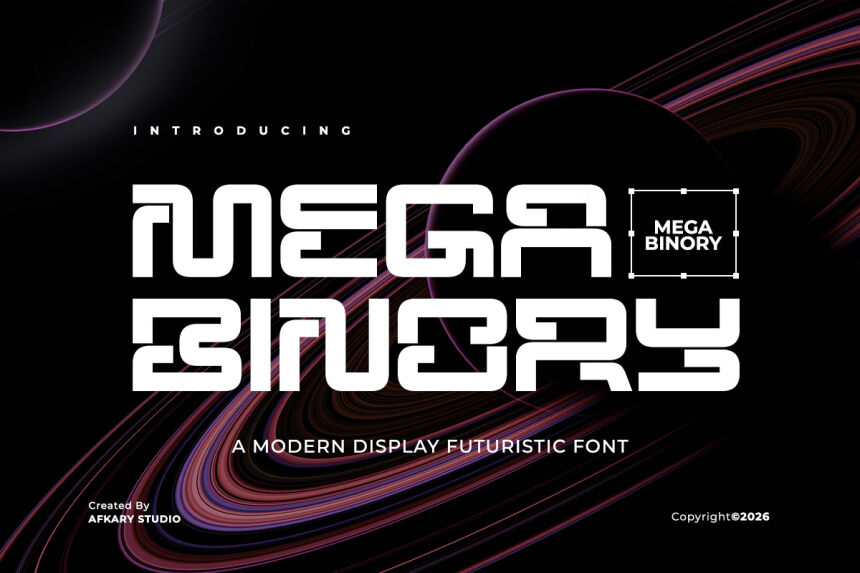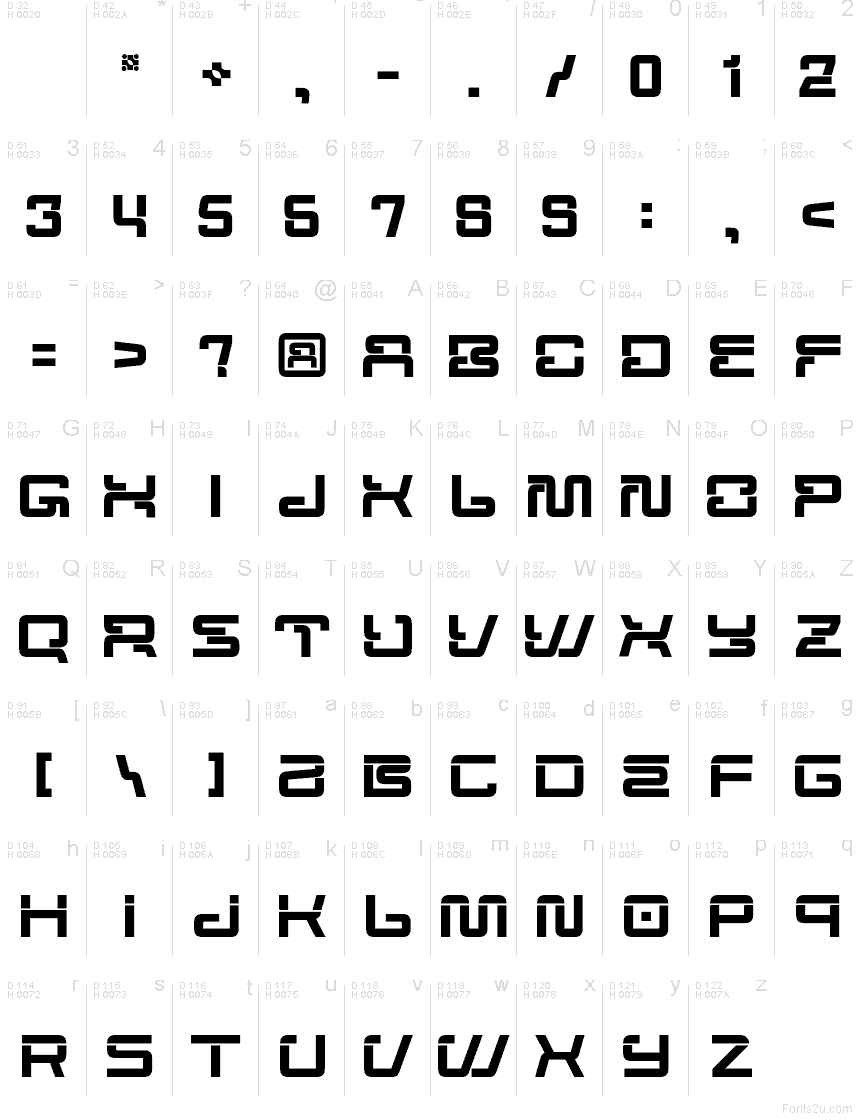
Mega Binory by Afkari Studio is a futuristic free display font with a smooth, machine-made presence. The letters run low and broad, built from heavy rounded bands with sharp slice-through gaps that make the forms feel modular, like signage from a sci-fi interface.
It suits music artwork, gaming logos, tech event posters, esports branding, app splash screens, and short title cards where a compact word needs a strong graphic shape. As a free font, it works best in brief display settings, because the segmented strokes and rounded turns give even simple words a custom, engineered rhythm.
Mega Binory